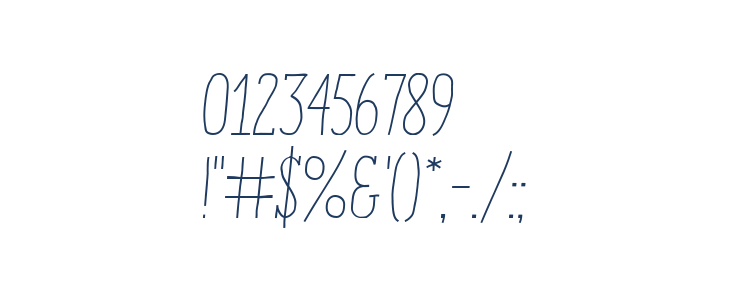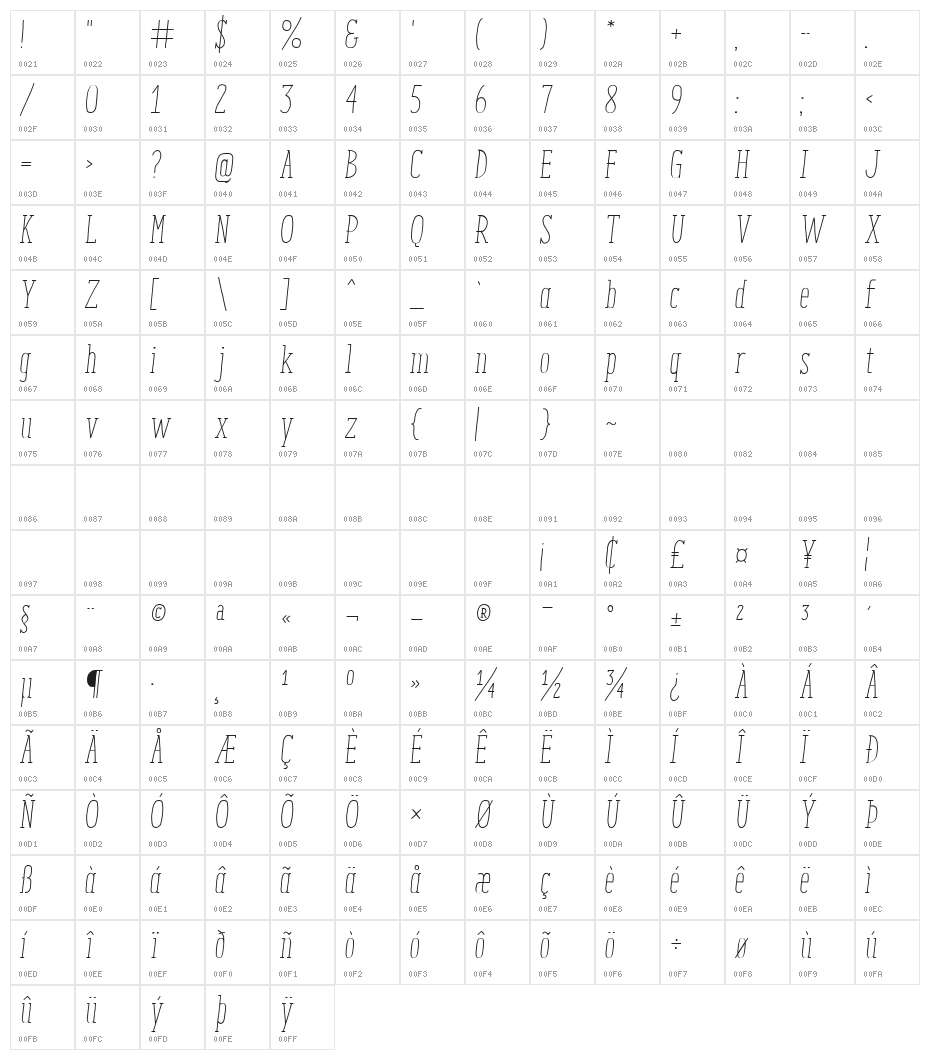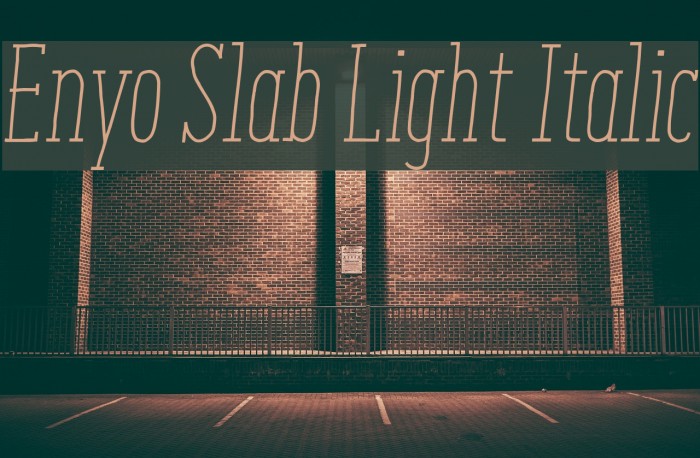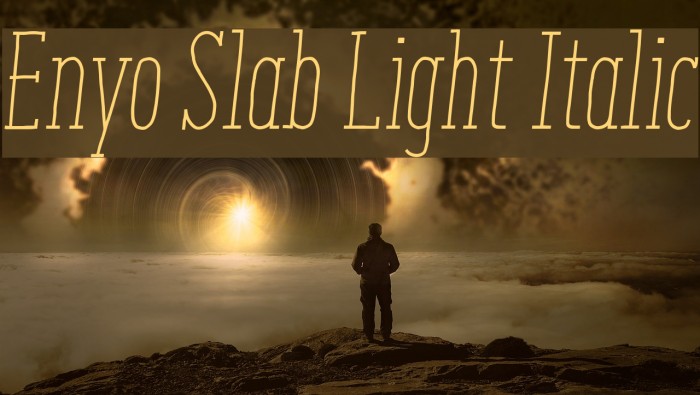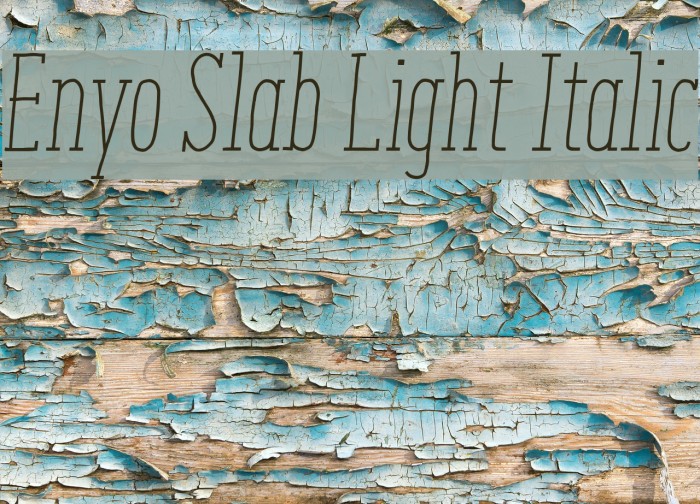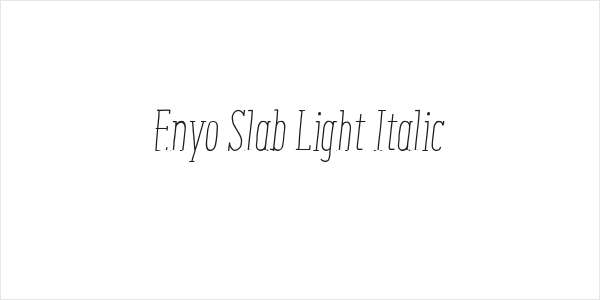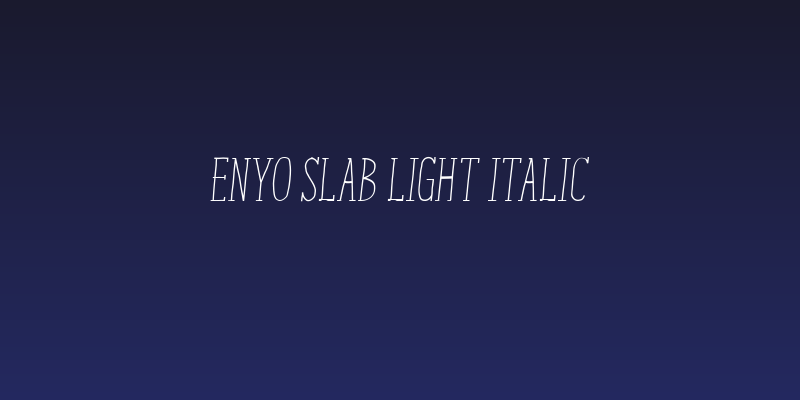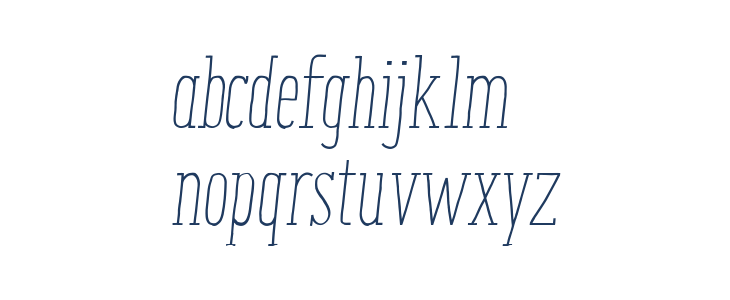
Enyo Slab Light Italic Font
Enyo Slab Light Italic Description
This font features a delicate and refined style, characterized by its light weight and italicized form. The letters are elegantly elongated, with a subtle slant that adds a sense of motion and sophistication. The strokes are thin, providing a graceful appearance, while the serifs are understated, enhancing readability without overpowering the design. The overall look is modern yet timeless, making it versatile for various applications. The numerals and special characters maintain the same elegant style, ensuring consistency across all text elements.
| Proposed Projects | Ideal for projects requiring a touch of elegance, such as wedding invitations, luxury branding, or editorial layouts. |